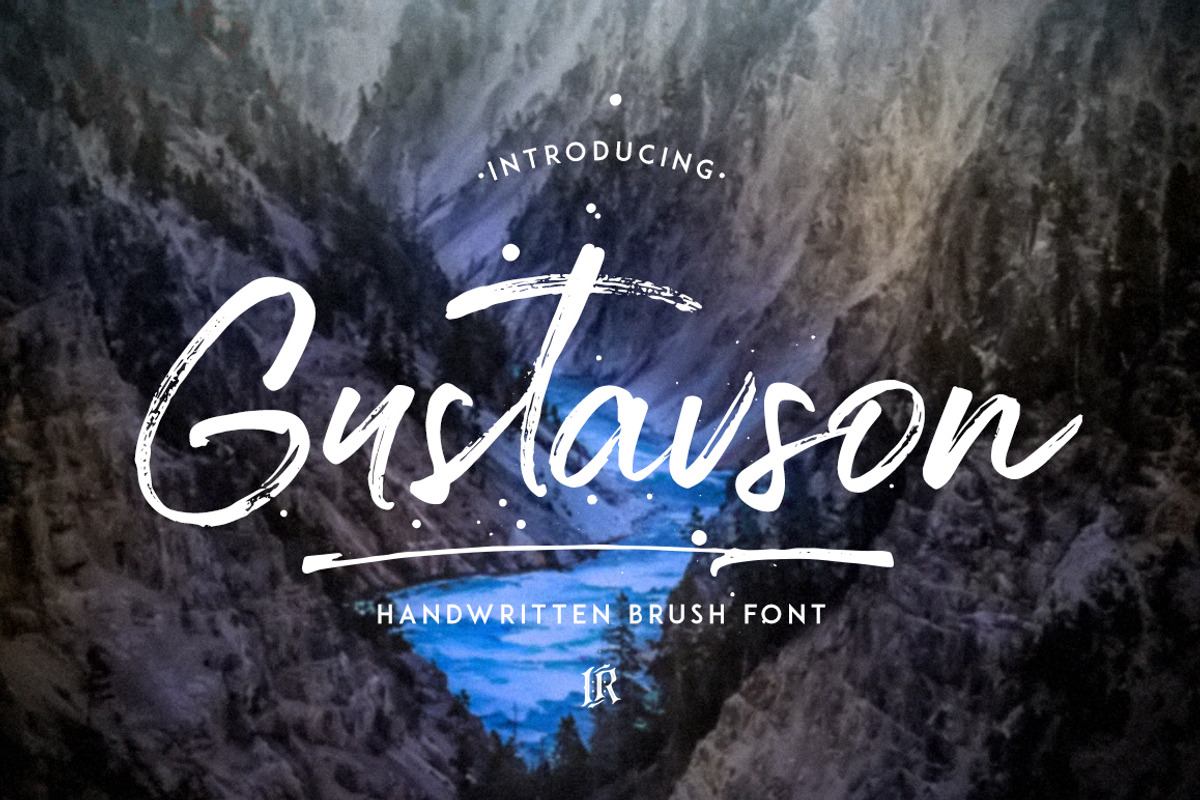
Gustavson Script Font Free Download
Gustavson Script Font Free Download is an elegant and stylish handwritten script typeface that features smooth, flowing curves and natural letter connections. This font exudes sophistication and charm, making it perfect for high-end branding, invitations, logos, wedding stationery, and any project that requires a touch of class and personalization.
With its clean and refined design, Gustavson Script Font Free Download offers a versatile approach to elegant typography, making it ideal for both digital and print use. Whether you're designing a chic logo or crafting heartfelt greeting cards, this font adds grace and personality to your projects.
Bring elegance and style to your designs with Gustavson Script Font Free Download—perfect for those looking to add a sophisticated, handwritten touch to their work. Ideal for creatives seeking refined and flowing script typography.